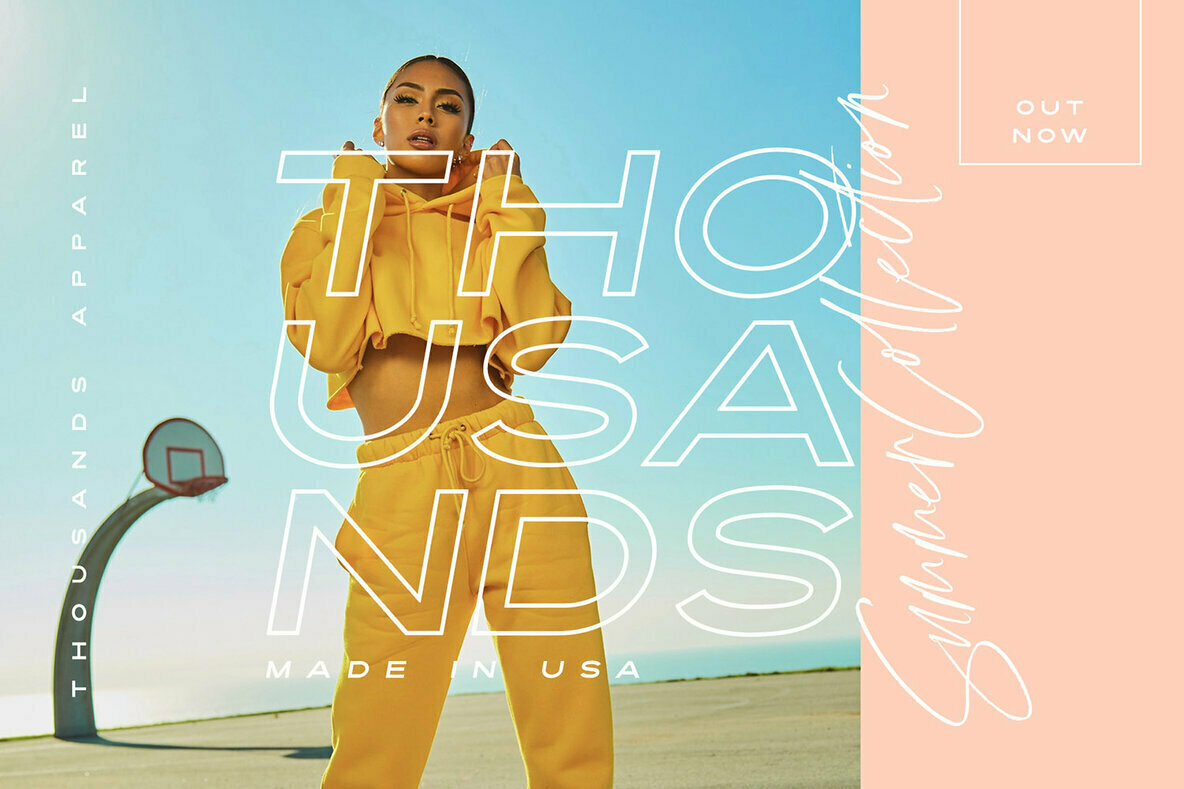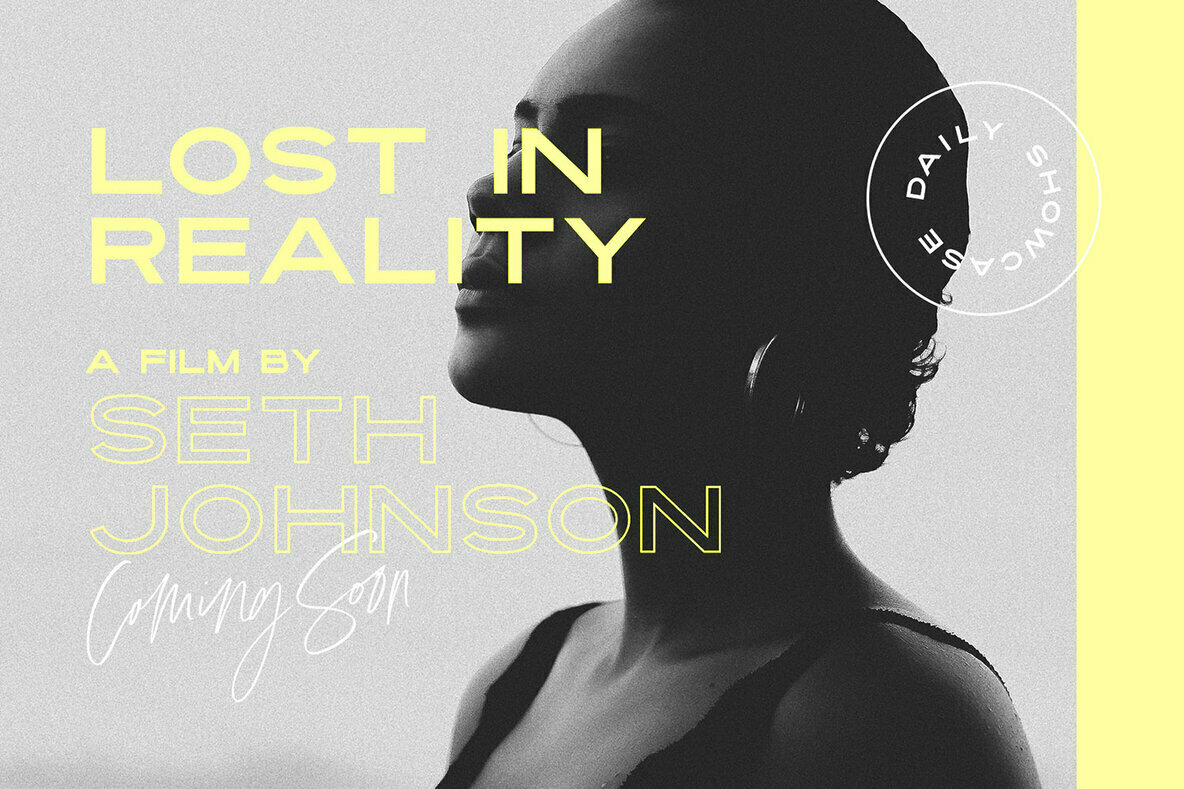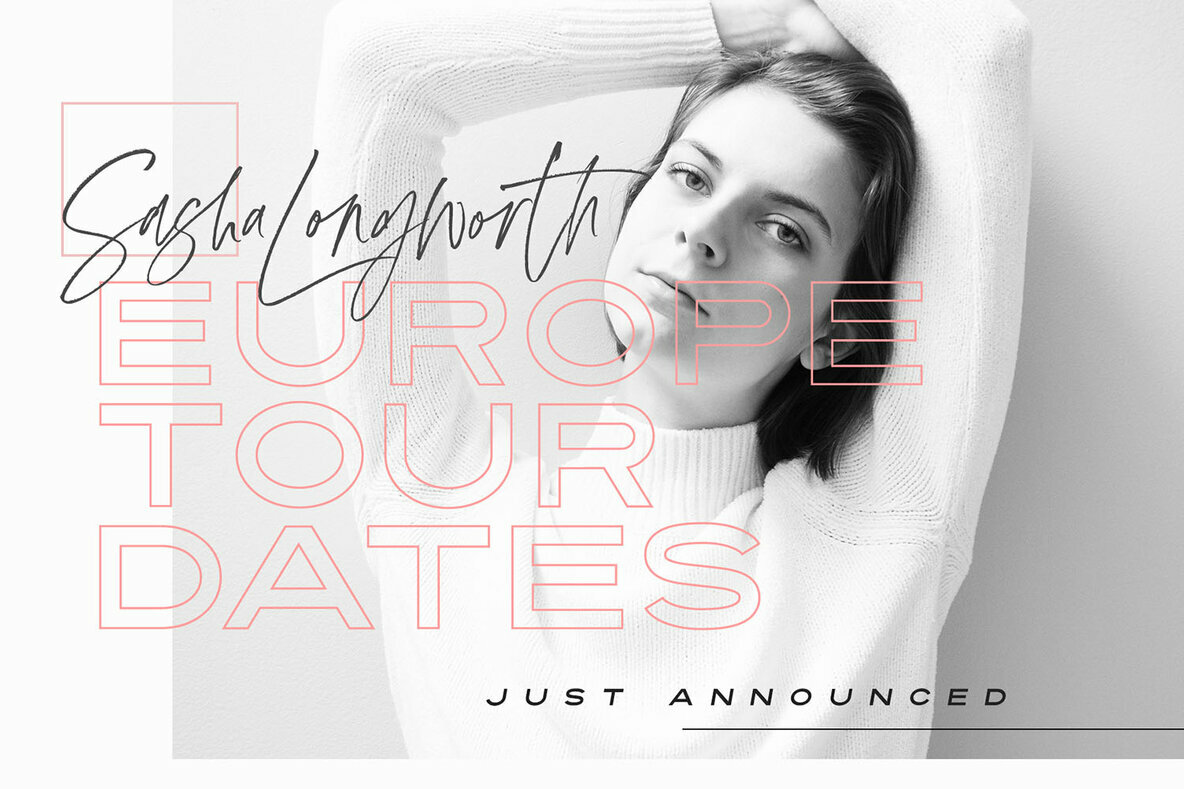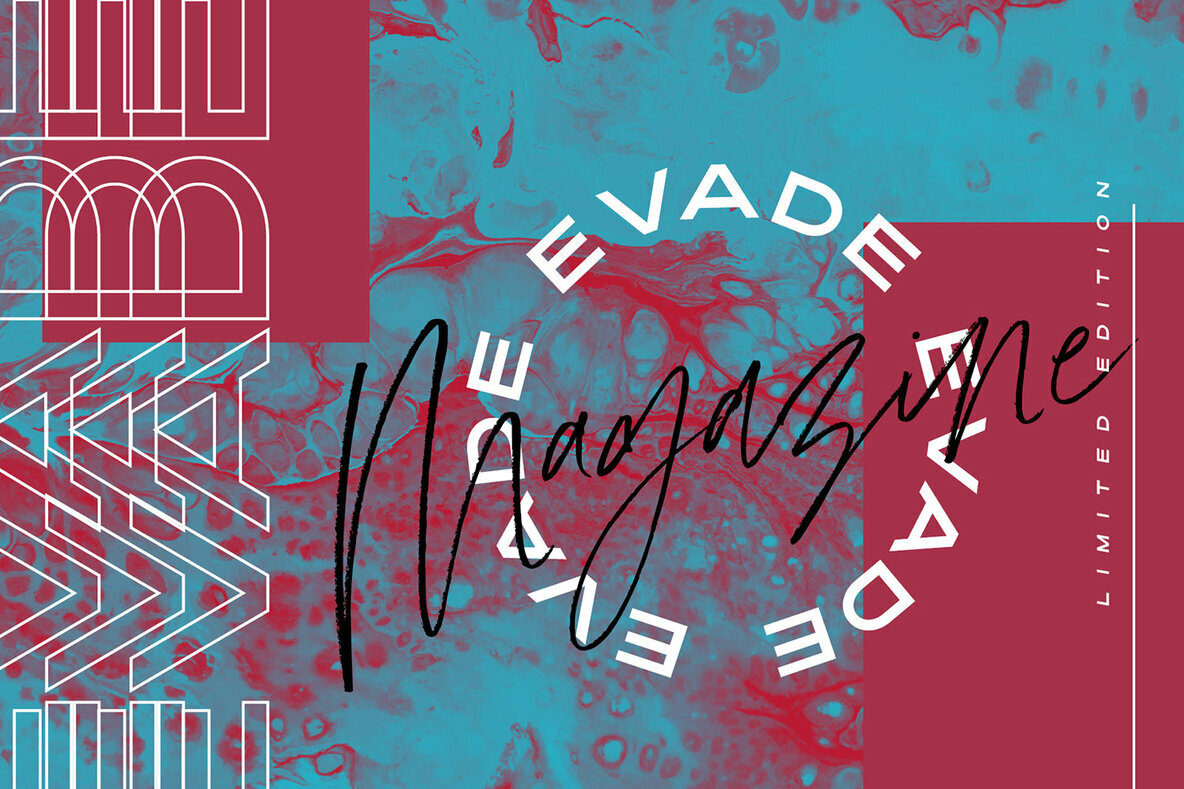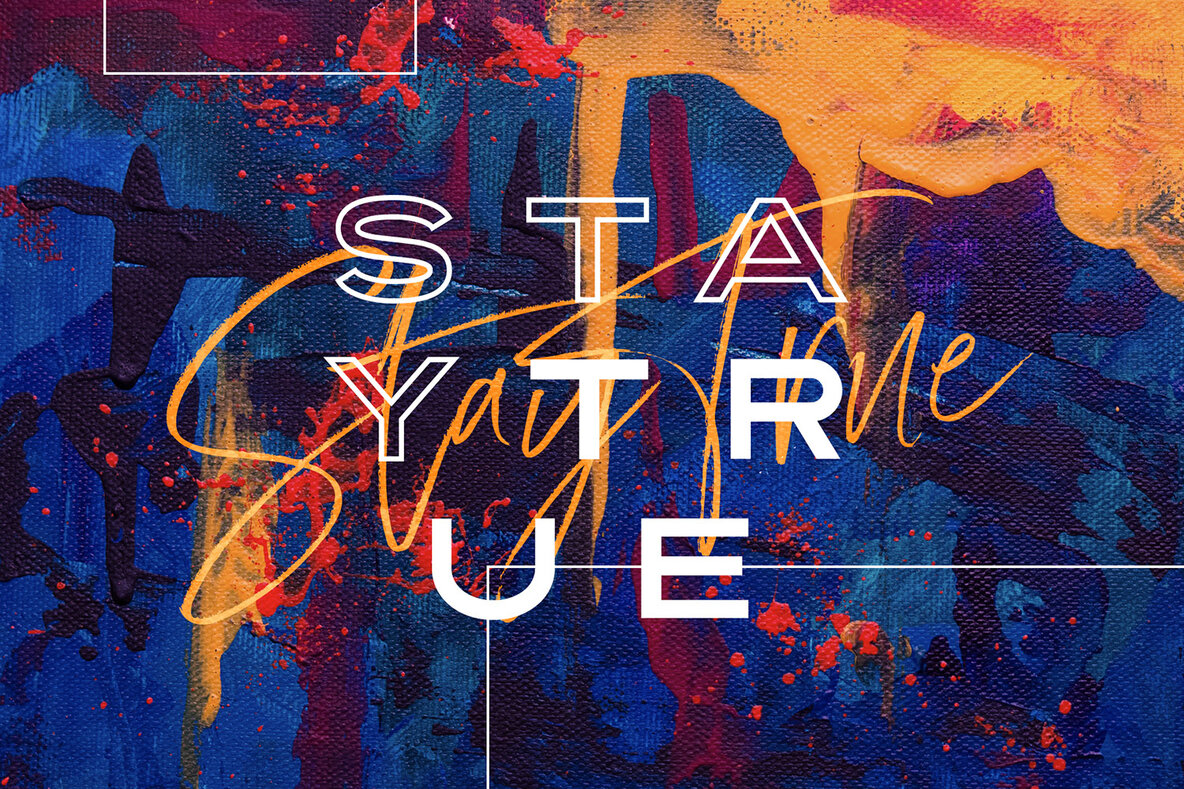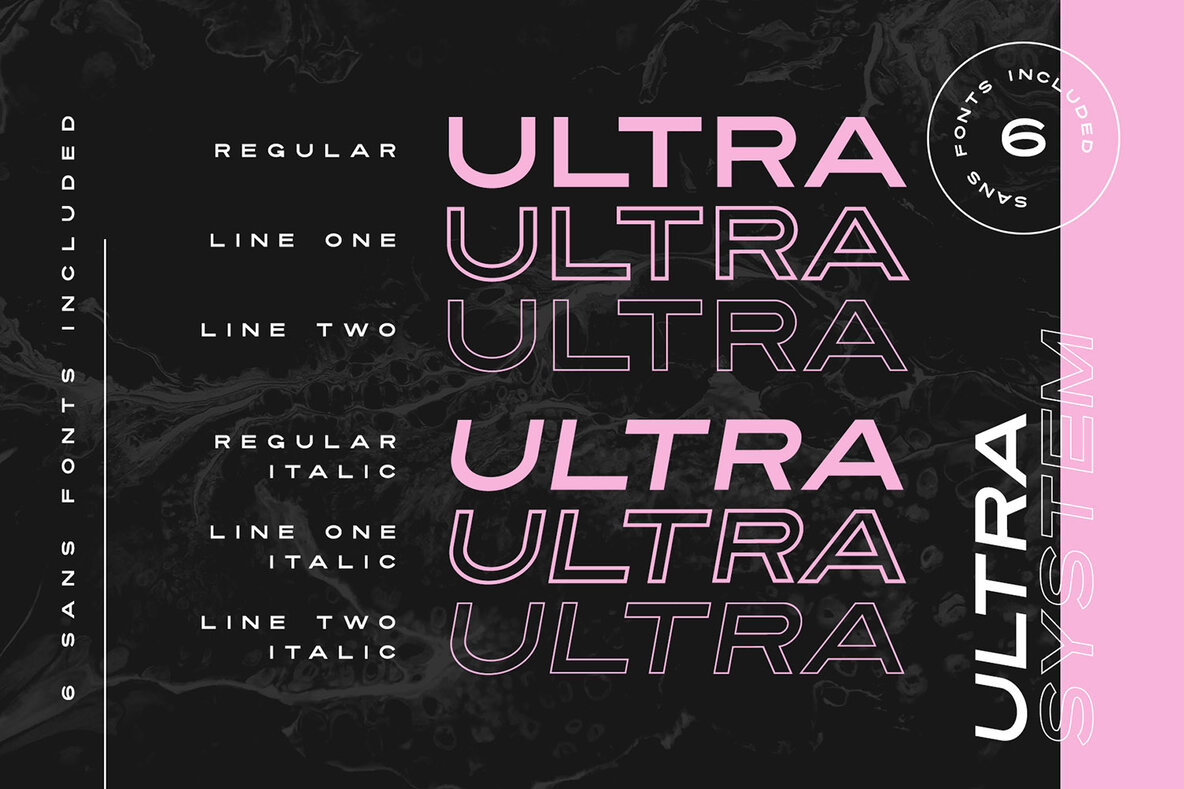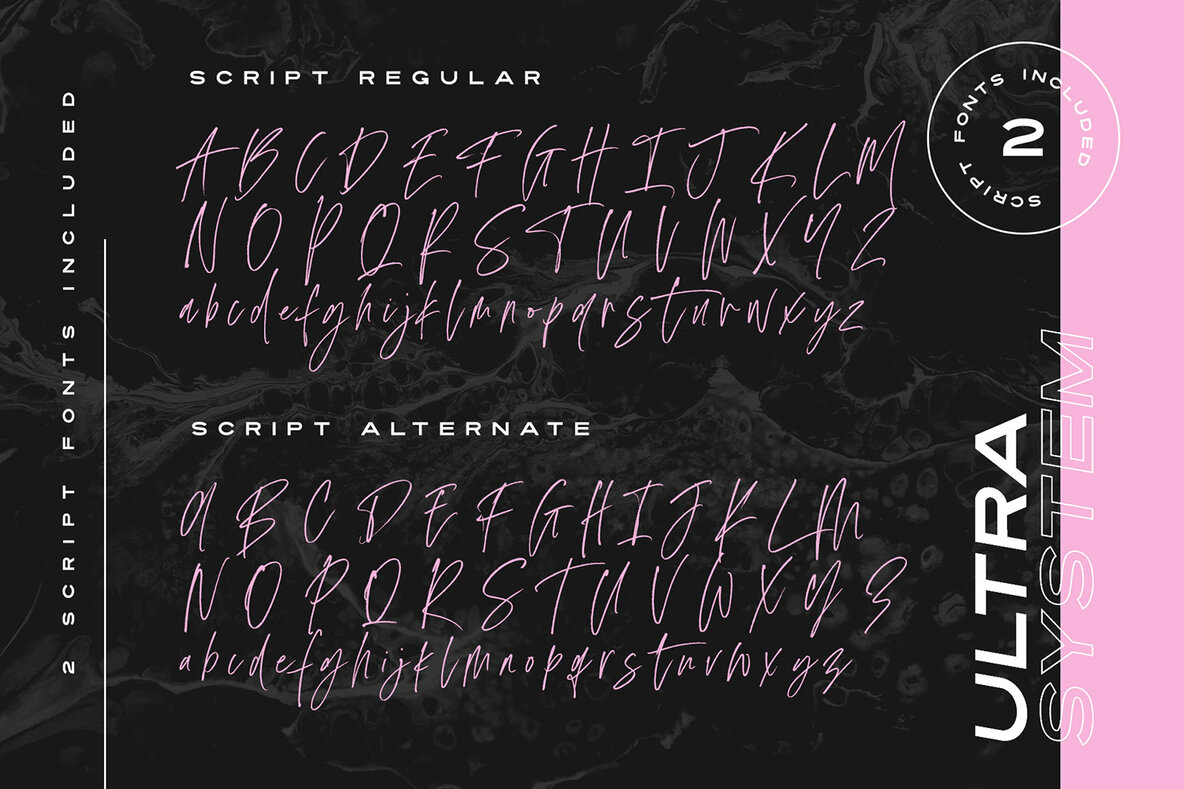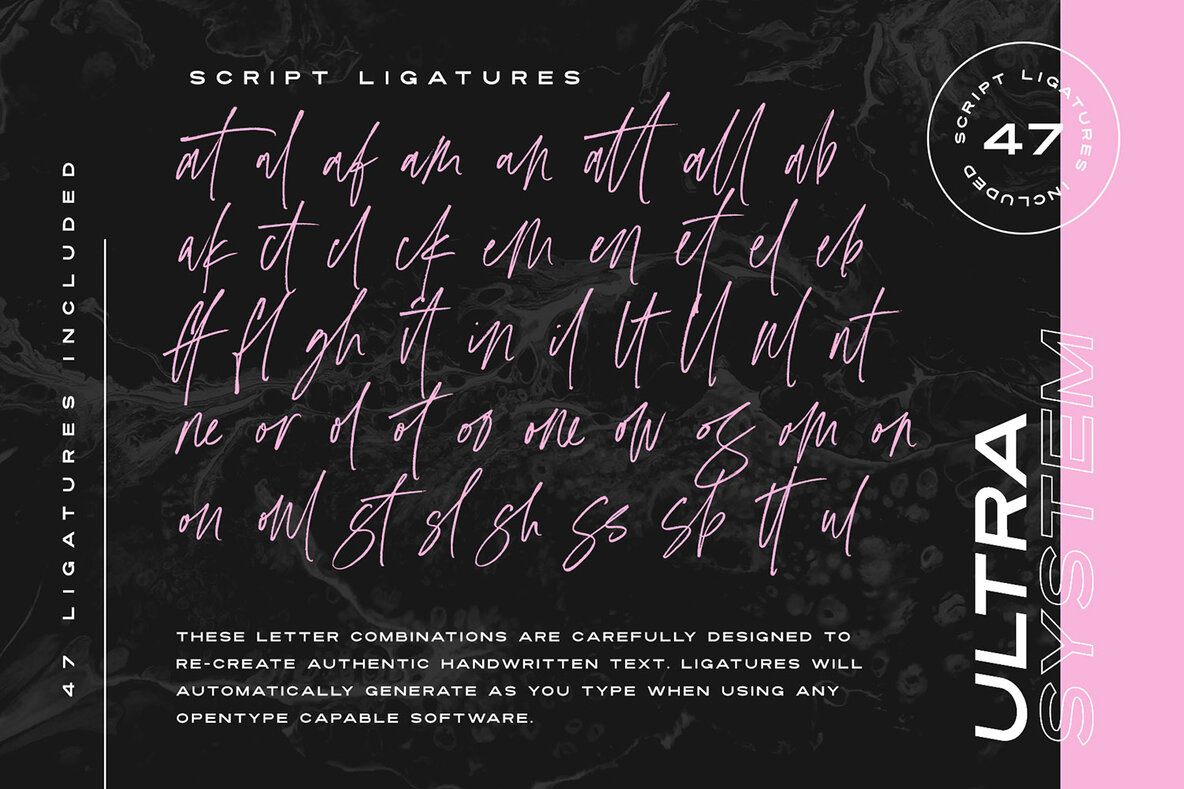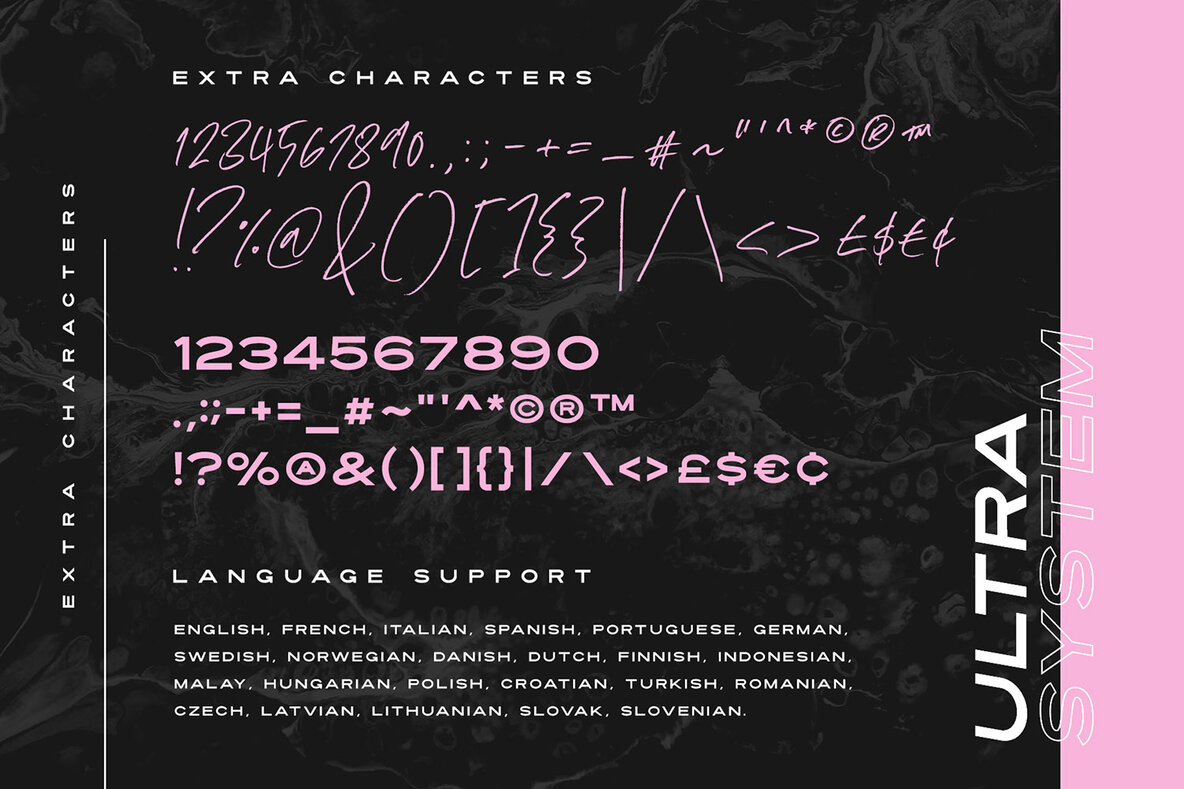
Ultra System Font Duo
Introducing Ultra System; A trendy collection of 8 fonts, each carefully designed to naturally compliment one another. With 6 clean sans fonts and 2 textured script fonts, Ultra System gives you a variety of ways to combine and arrange each font, allowing you to create striking & modern typographic designs.
Ultra System Script • A textured, bouncy & flowing marker script font containing upper & lowercase characters, numerals, and a large range of punctuation.
Ultra System Script Alt • This is a second version of Ultra System Script, with a completely new set of both upper and lowercase characters. If you wanted to avoid letters looking the same each time to recreate a custom-made style, or try a different word shape, simply switch to this font for an additional layout option.
Ultra System Sans • A wide, bold sans font containing uppercase only characters, numerals, and a large range of punctuation.
Ultra System Sans Line One • A thick outlined version of Ultra System Sans, pair this with other Ultra System Sans fonts to add emphasis to words or phrases.
Ultra System Sans Line Two • A thin outlined version of Ultra System Sans, pair this with other Ultra System Sans fonts to add emphasis to words or phrases.
Ultra System Sans Italic • Italic variations are included for all 3 Ultra System Sans fonts.
Language Support • All Ultra System fonts support the following languages; English, French, Italian, Spanish, Portuguese, German, Swedish, Norwegian, Danish, Dutch, Finnish, Indonesian, Malay, Hungarian, Polish, Croatian, Turkish, Romanian, Czech, Latvian, Lithuanian, Slovak, Slovenian